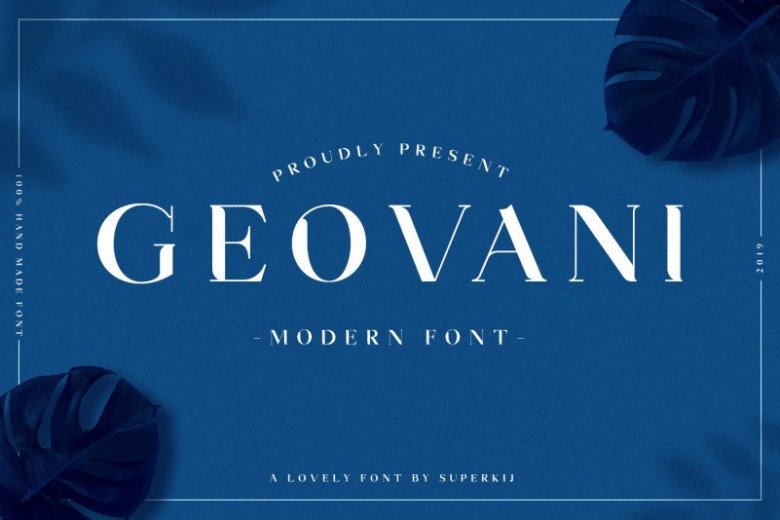
Geovani – Modern Font
I am very pleased to introduce a new modern sans font. Suitable for use in title design or any needs. Geovani Modern Serif Font is designed and shared by Adhi Nugraha. It’s a modern sans font with a strong character.
It’s can also be used for various projects such as stationery invitations, social media, logos, weddings, branding, graphic design with additional swashes. and can be combined with various types of serif fonts to perfect the project you want to work on.